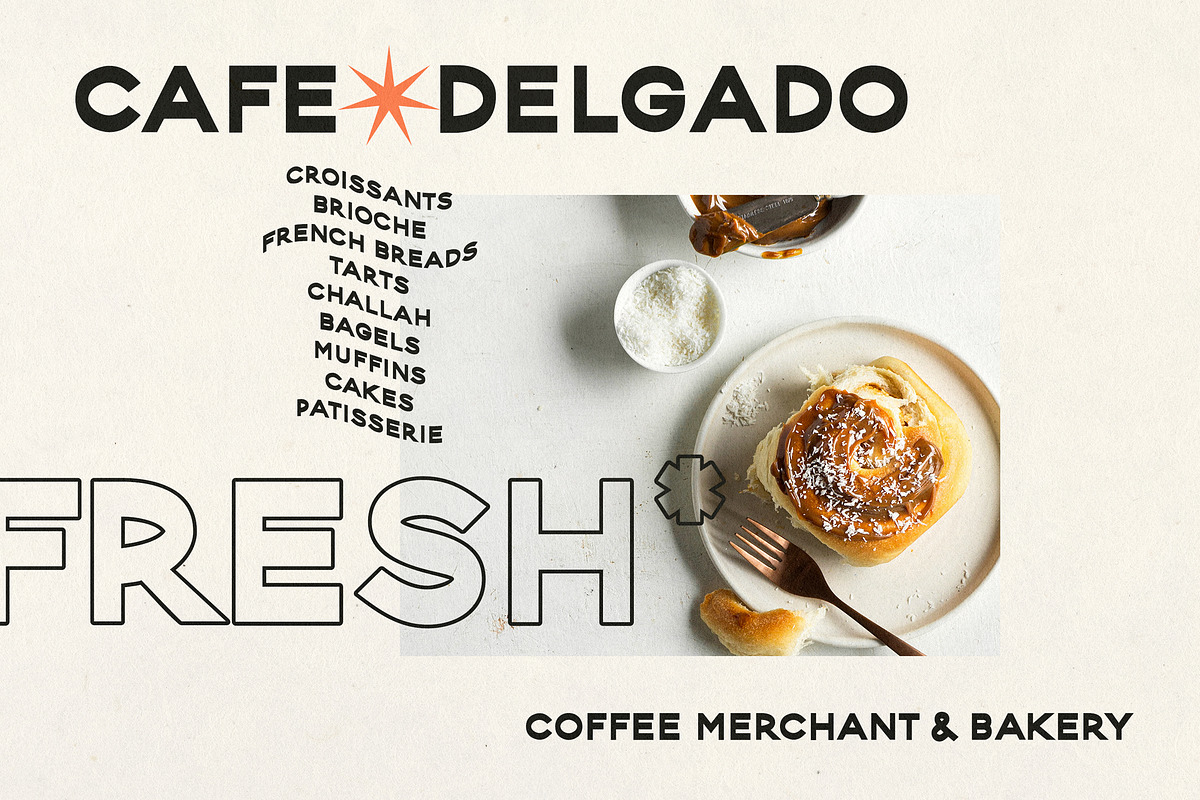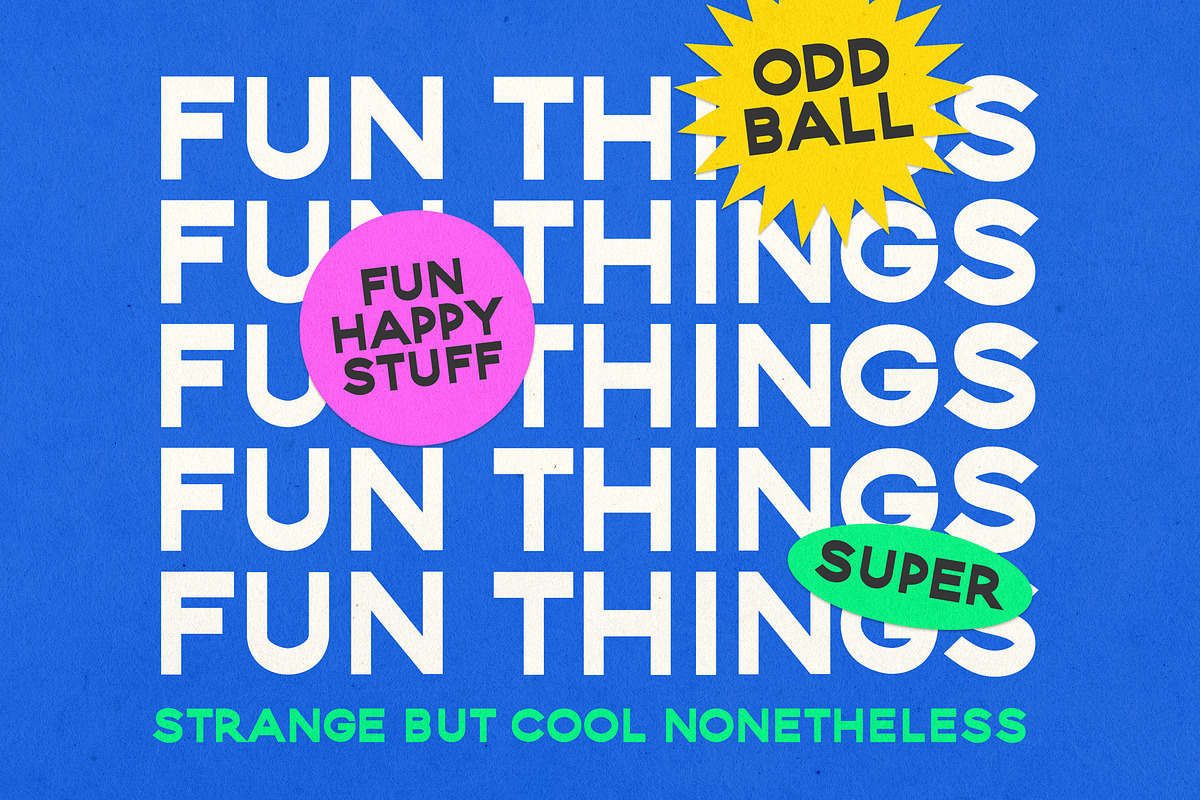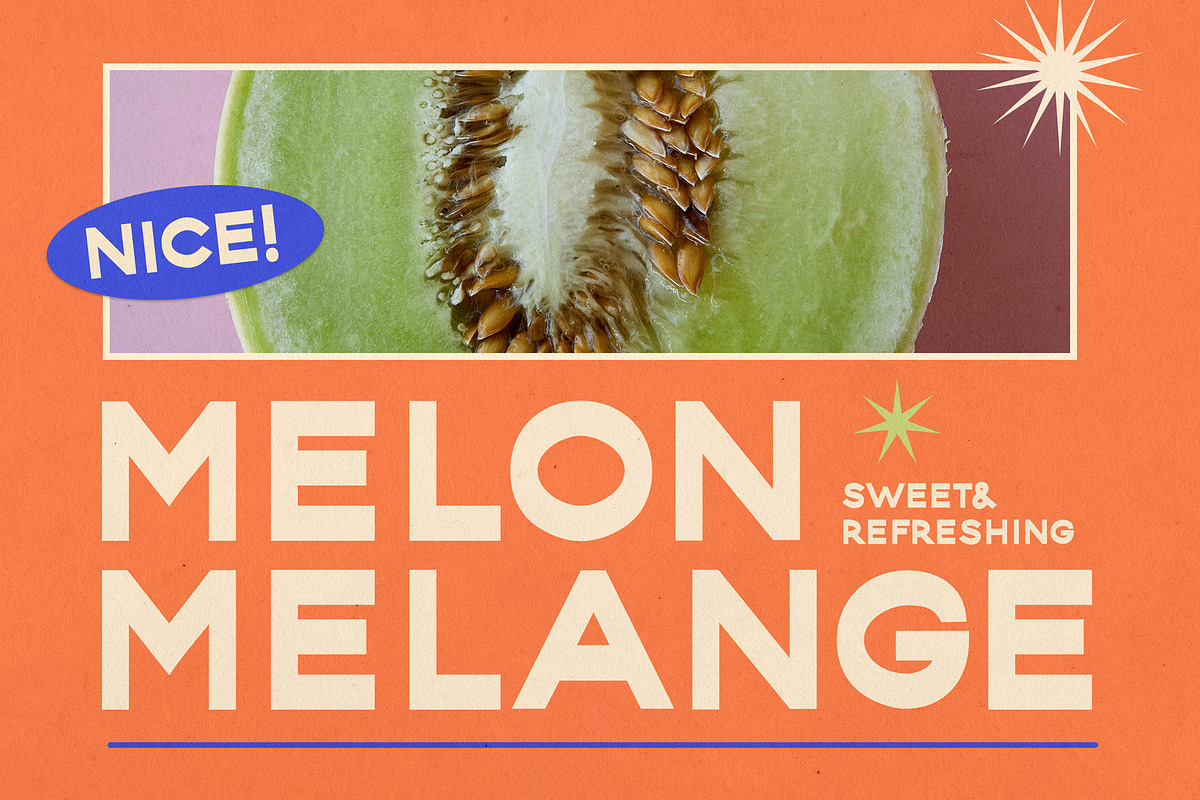
Magic Ramen is an oddball allcaps sans serif font with weird contrast! Playful and strange – perfect for unusual avant-garde branding and projects. Available in both solid and outline fonts. Language Support – Danish, English, French, German, Norwegian Bokmål, Norwegian Nynorsk, Swedish and Swiss German.